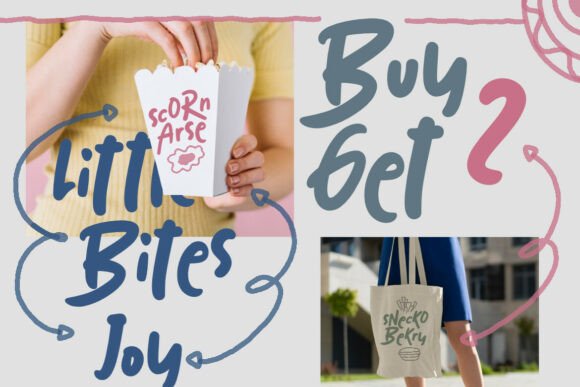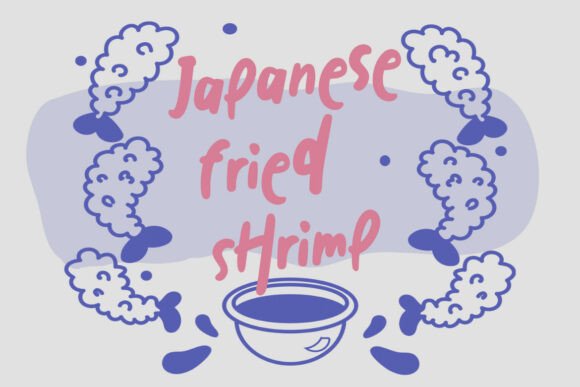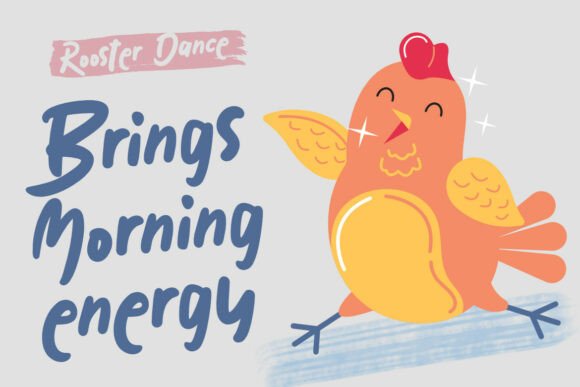
Introduction to Rooster Doodle Font
Rooster Doodle Playful Handwritten Display Font is a cheerful and charming typeface inspired by cute doodle sketches, farmyard characters, and casual handwritten lettering.
With soft curves, rounded strokes, and playful forms, this font brings a friendly and joyful personality to any design Designed with a relaxed hand-drawn style, Rooster Doodle captures the spontaneous feel of doodling on paper.